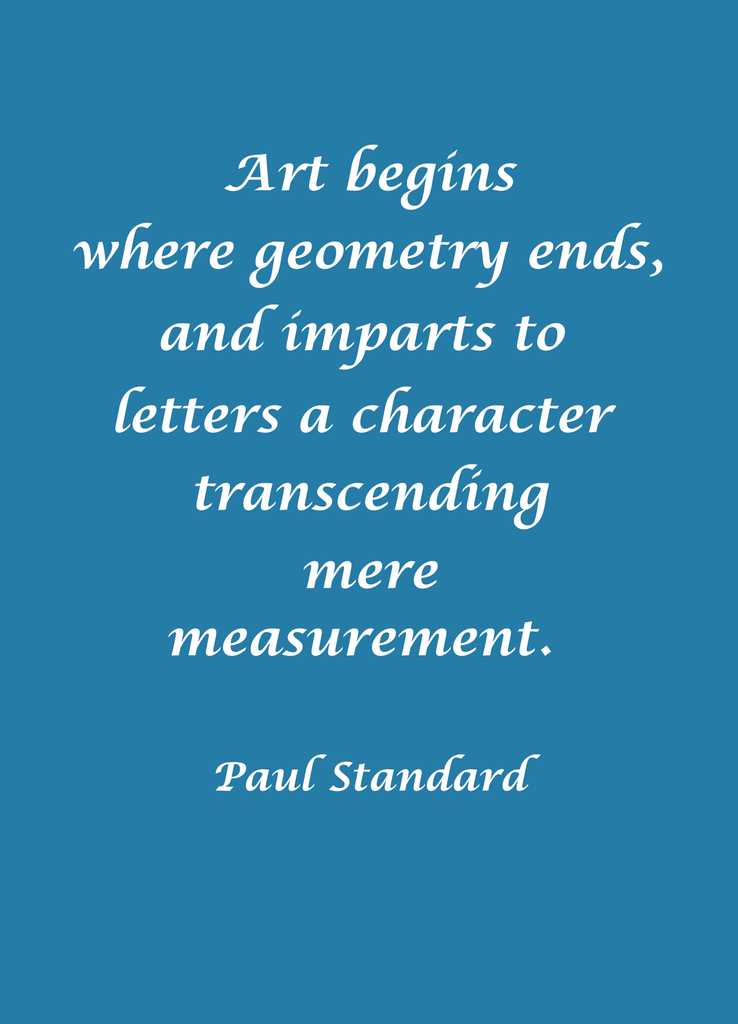
Fonts Lucida Calligraphy
Fonts Lucida Calligraphy - It is a very legible and. Elevate your designs with lucida calligraphy regular font. Lucida calligraphy is a chancery cursive script typeface family designed by kris holmes and charles bigelow. Installable on pc, mac, linux, ios, and android platforms. For an even more striking and elegant companion to lucida roman, use lucida calligraphy, but add enough extra line spacing that the longer.